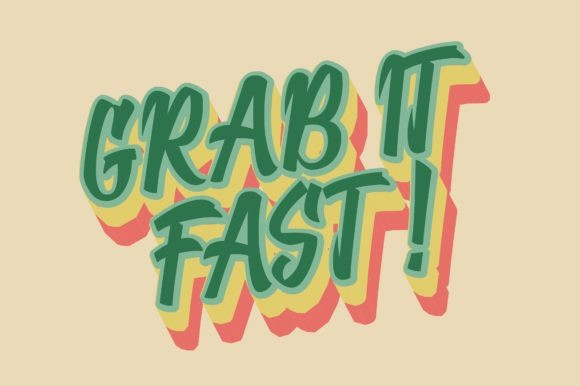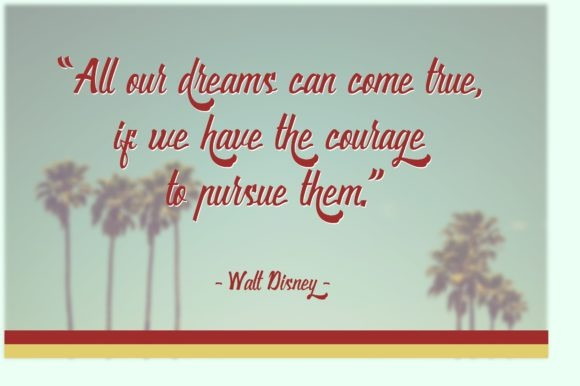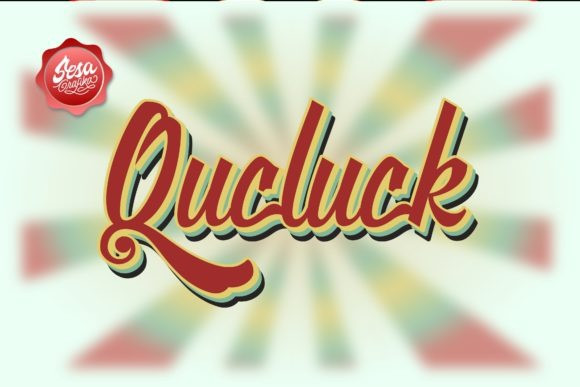
Qucluck Script Font
Qucluck Script Font is a great retro styled script font. Clean and a little bit quirky, this font is the perfect fit for all of your logos, branding, social media, apparel, and more. Qucluck is PUA encoded which means you can access all of the glyphs and swashes with ease!